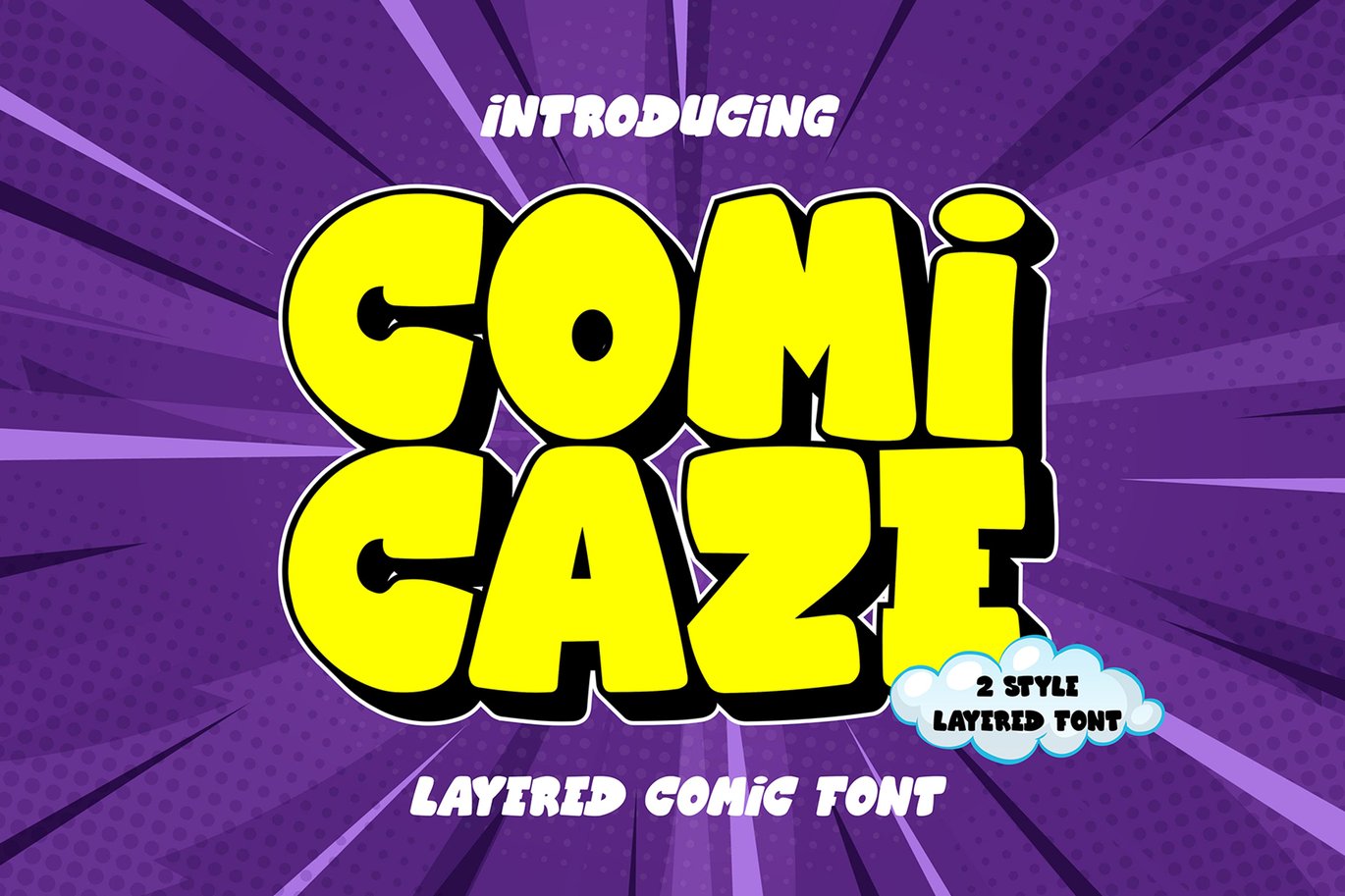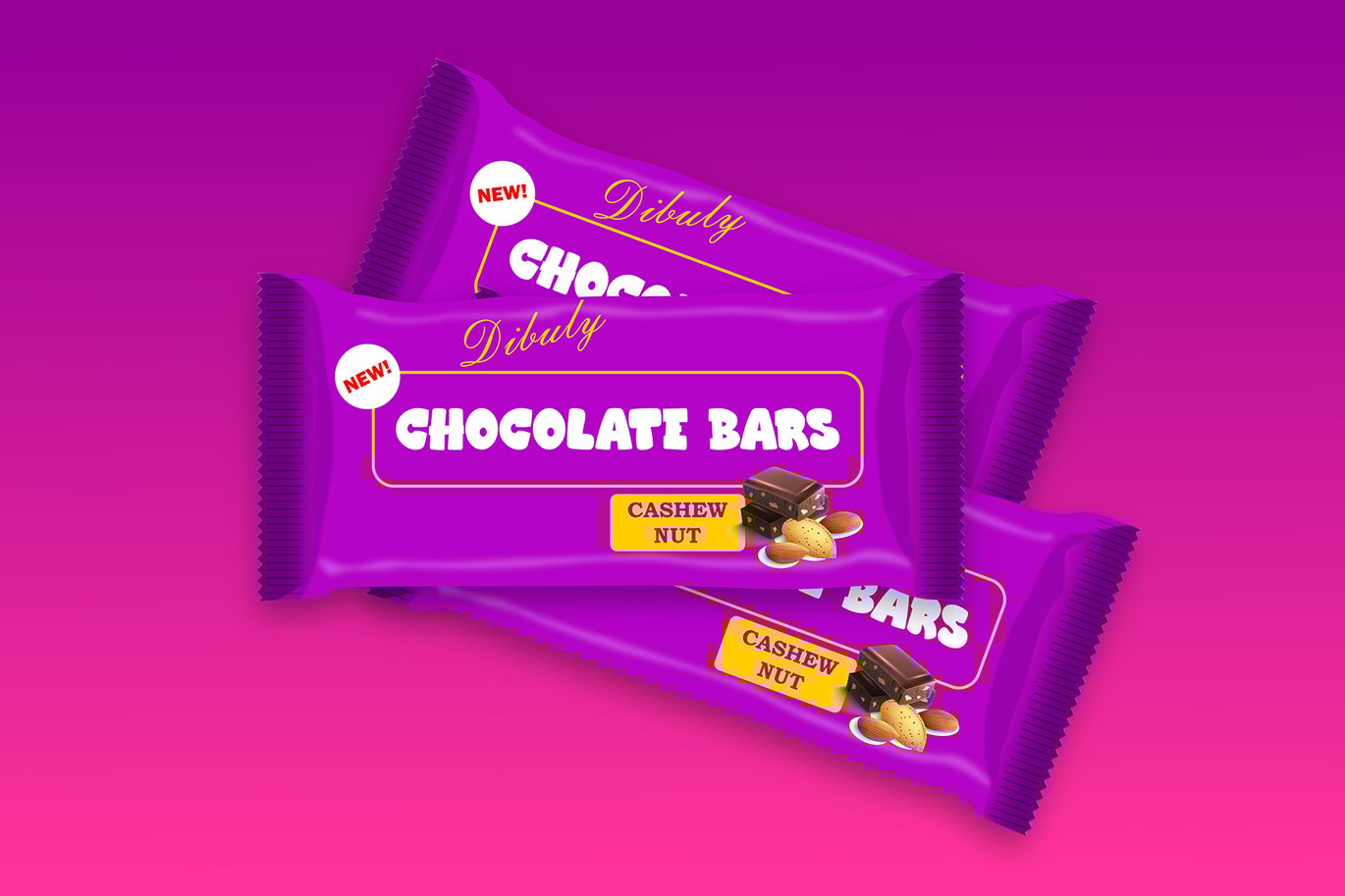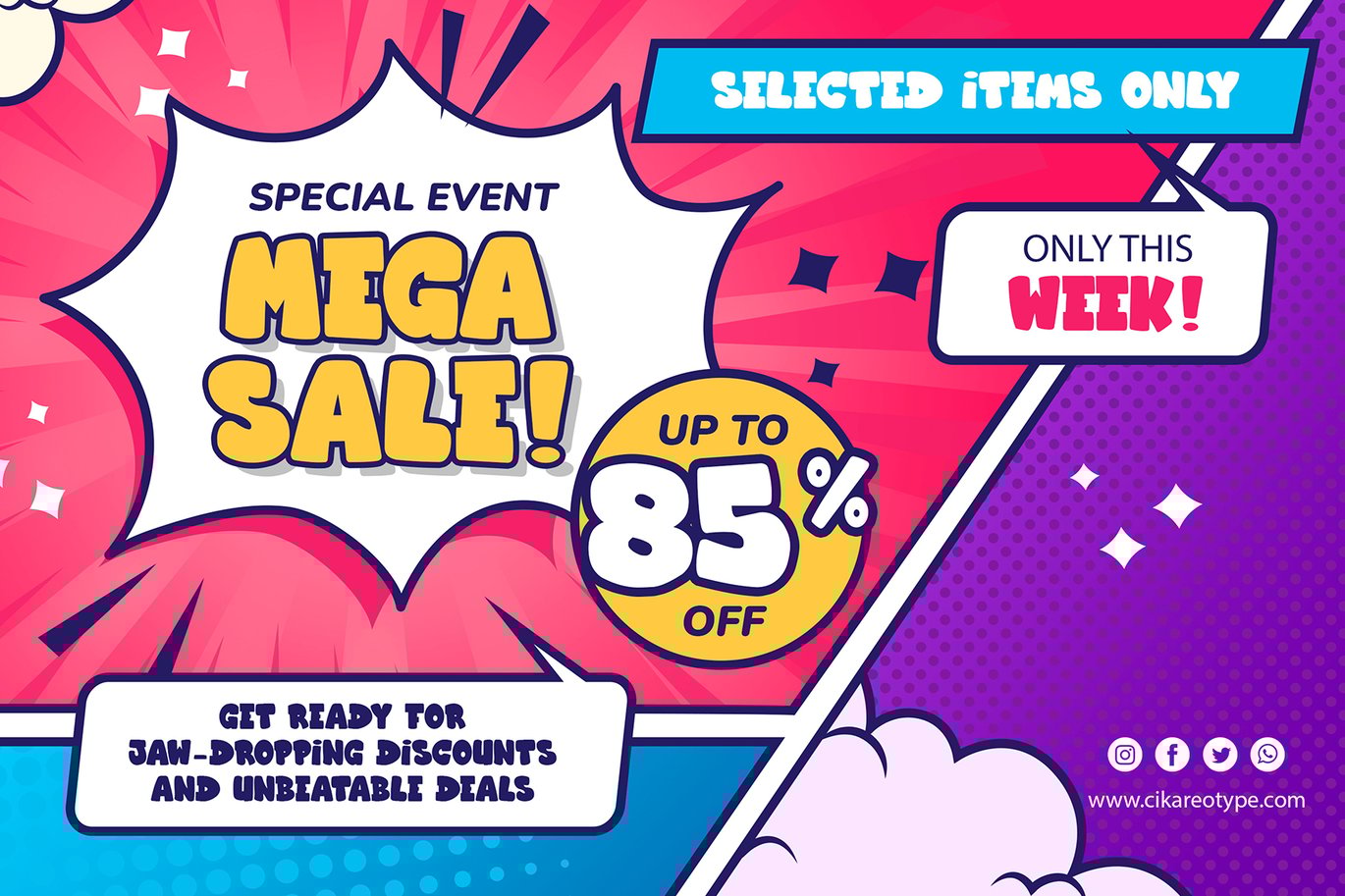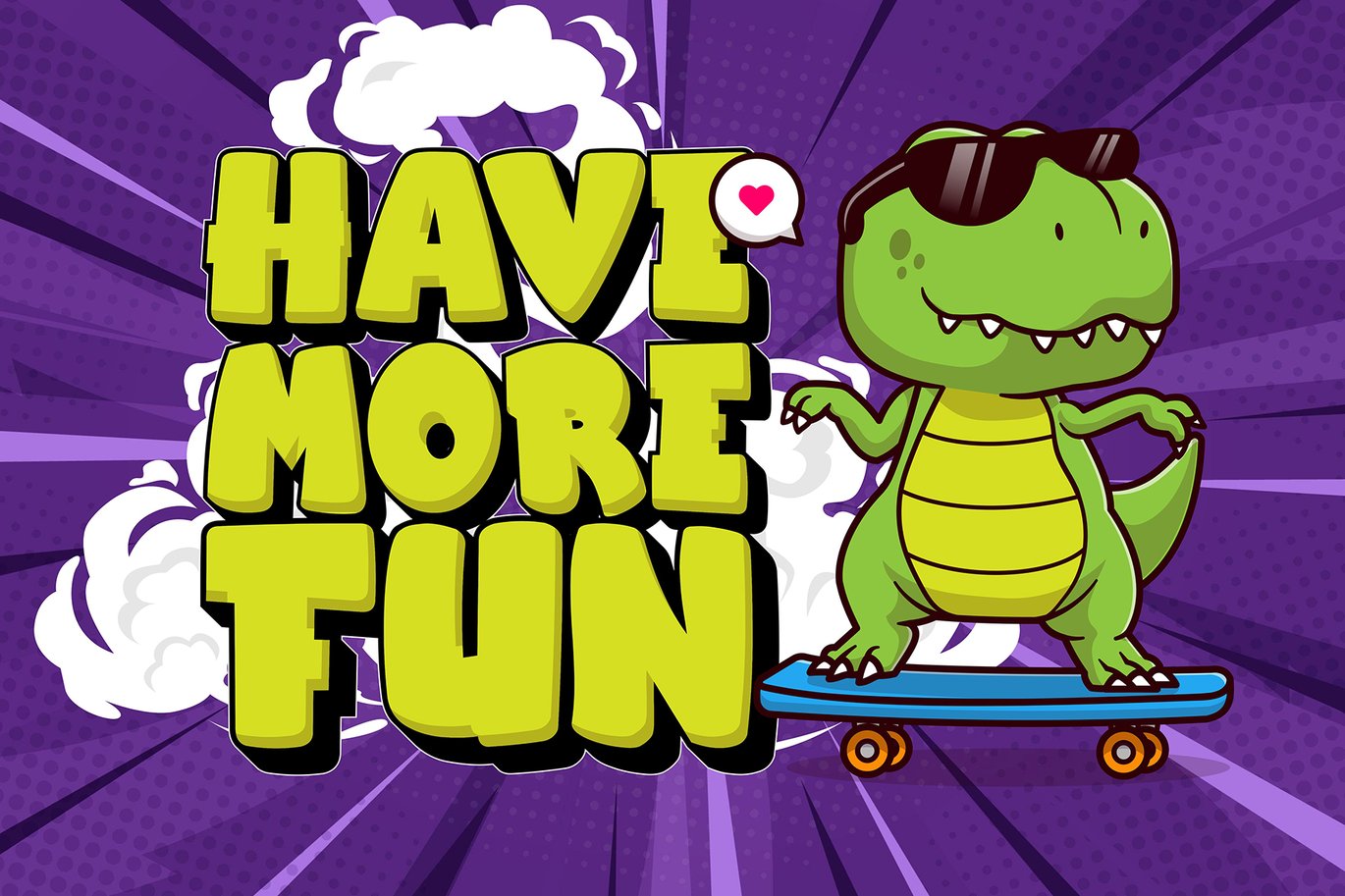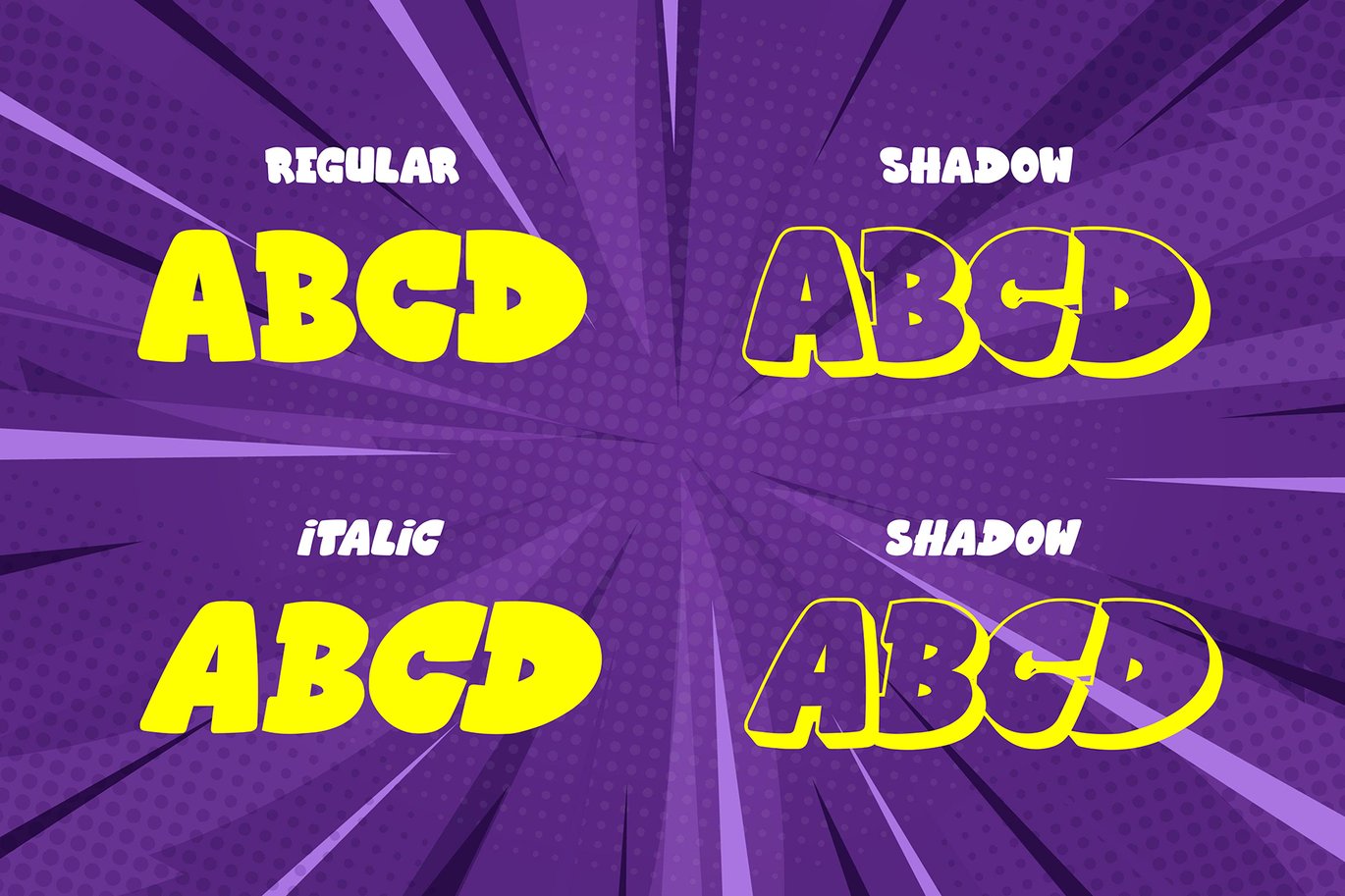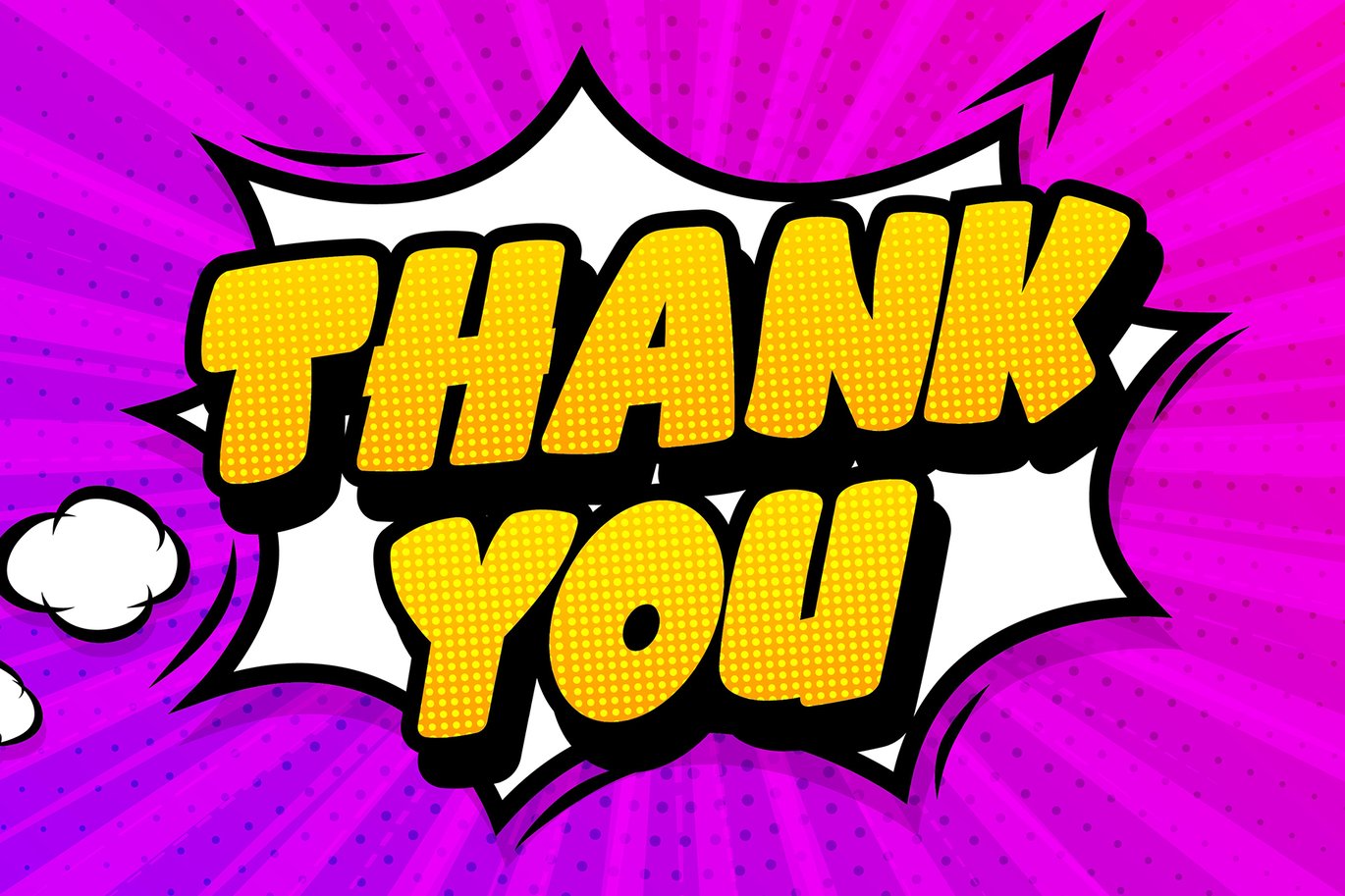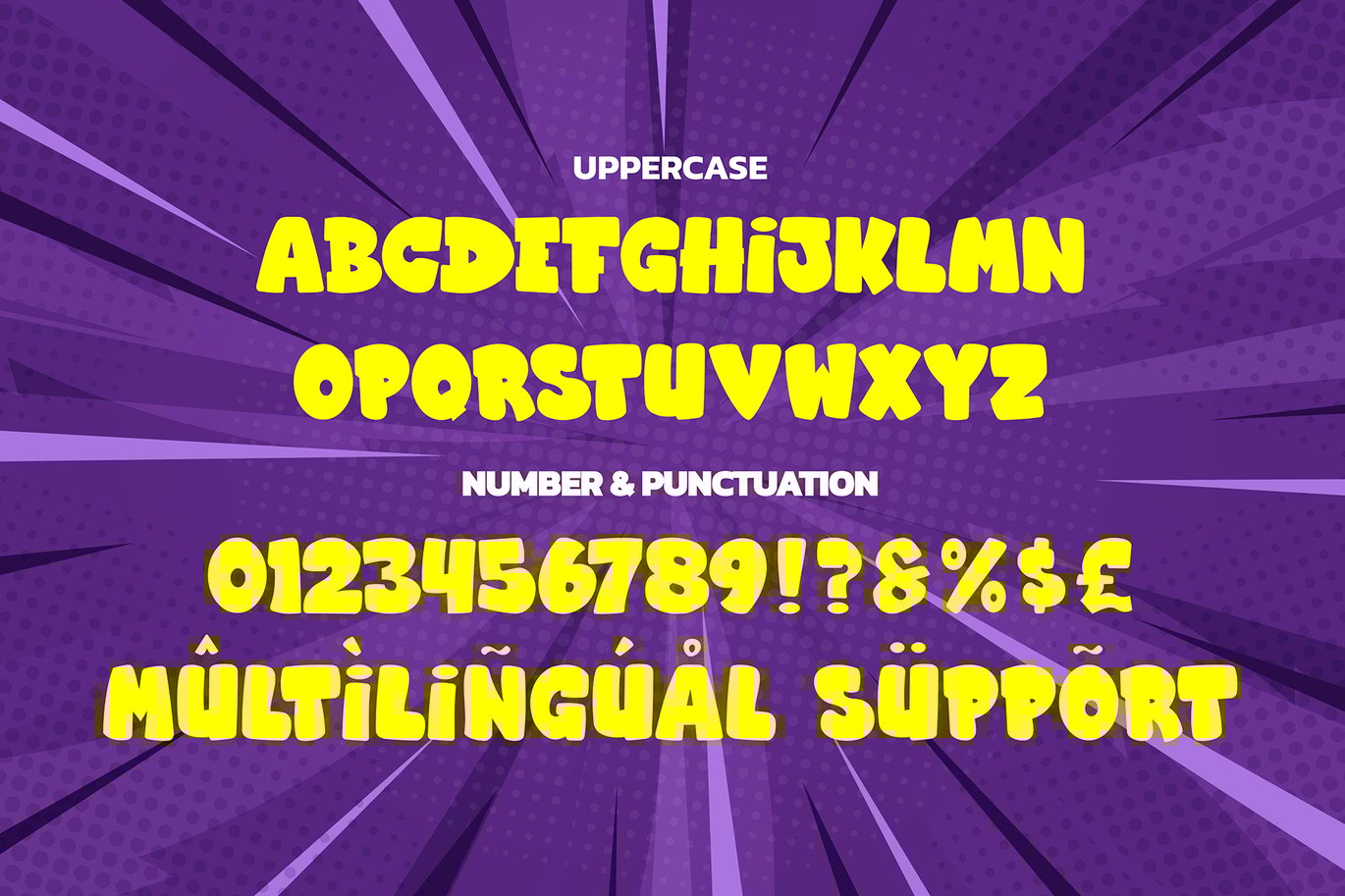
Comicaze – Layered Comic Font
Dive into the comic universe with Comicaze, the layered comic font that takes your designs on an adventurous journey through the vibrant pages of graphic storytelling. More than just a font, Comicaze is a powerhouse of creativity, where each layer contributes to a dynamic visual narrative, turning your words into a captivating comic strip.
Crafted with precision and a touch of graphic brilliance, every stroke in Comicaze echoes the whimsical charm of classic comics. Whether you’re designing for posters, comic books, or any project that craves a bold, dynamic aesthetic, this font ensures your words become a visual spectacle. Comicaze isn’t just a font; it’s a design superhero, turning your creations into a lively and impactful graphic story. Elevate your designs with the layered and superheroic allure of Comicaze – because, in the world of comics, this font speaks with the power of a thousand speech bubbles!